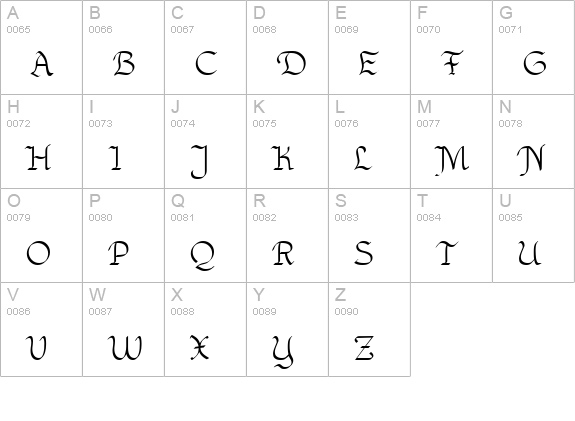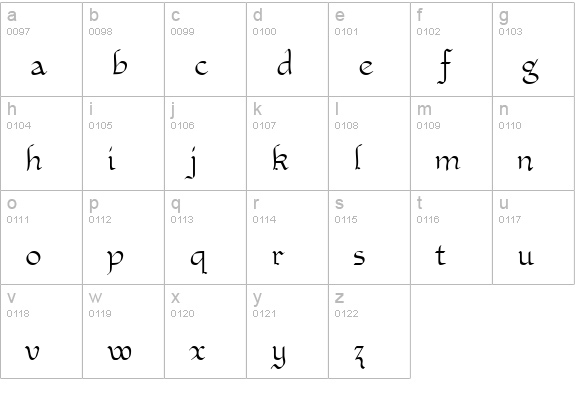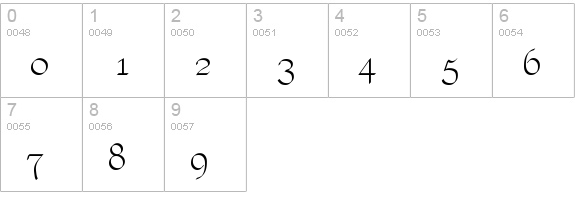
Xaltid Regular Font Details
Xaltid Regular is the standard, neutral variant in the Xaltid typeface family \xE2\x80\x94 well suited to general body text, paragraphs, and standard typographic work.
Xaltid Regular font exudes a perfect blend of modern elegance and timeless sophistication. Its clean lines and balanced proportions make it versatile for a wide range of design projects. The sleek and contemporary feel of Xaltid Regular font effortlessly elevates any text, whether it's for branding, editorial design, or web content. And the best part? Xaltid Regular font is completely free to download at FontsMarket.com. So you can easily incorporate this stunning typeface into your projects without any cost. Don't miss out on the opportunity to enhance your designs with the beautiful Xaltid Regular font - download it today and let your creativity shine!